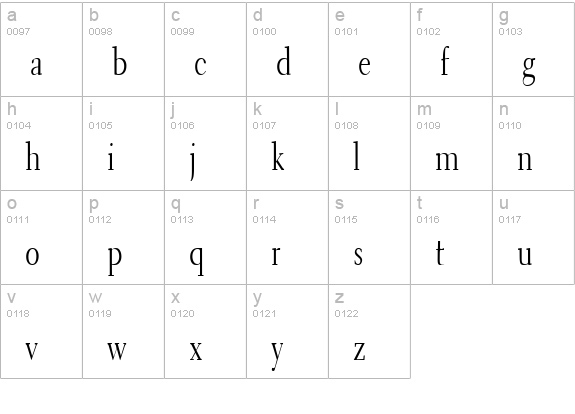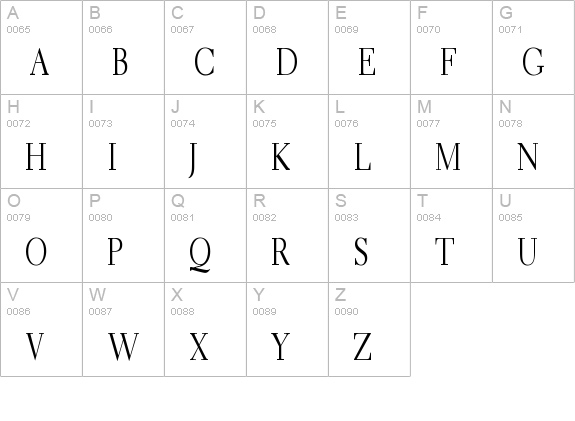
Transit 2 Condensed Normal Font Details
Transit 2 Condensed Normal is the standard, neutral, condensed-width variant in the Transit typeface family \xE2\x80\x94 well suited to general body text, paragraphs, and standard typographic work.
Transit 2 Condensed Normal font is a sleek and modern typeface that is perfect for a wide range of design projects. With its clean lines and compact letterforms, this font adds a touch of sophistication to any layout. Its condensed style allows for more text to fit within a limited space, making it ideal for posters, flyers, and other printed materials. This versatile font is not only visually appealing, but it is also incredibly easy to read. Its clear and legible letterforms ensure that your message is delivered with clarity and precision. Whether you're designing a magazine spread, a website, or a logo, Transit 2 Condensed Normal font will give your project a professional and polished look. One of the best things about Transit 2 Condensed Normal font is that it is free to download. That's right – you can access this amazing font without spending a penny. It is freely available to download at FontsMarket.com, a trusted source for high-quality fonts. Simply visit the website, locate the Transit 2 Condensed Normal font, and hit the download button. Within seconds, you'll have this stunning font ready to use in your design projects. So why wait? Enhance your designs with the elegance and versatility of Transit 2 Condensed Normal font. Download it for free today at FontsMarket.com and take your designs to the next level.